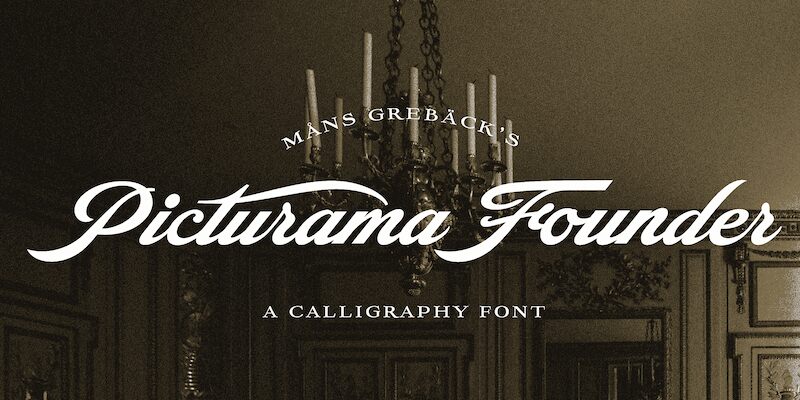
Picturama Alternate PERSONAL Regular
Picturama Alternate is a stunning addition to the Picturama Founder font family created by Mans Greback. This calligraphy style font exudes timeless elegance while embracing modern creativity.
Its graceful curves and seamless connections evoke a sense of refinement, reminiscent of vintage labels or classic vinyl covers. Picturama Alternate is perfect for projects that require a touch of sophistication and nostalgia, such as wedding invitations, luxury branding, or artistic photography portfolios.
Captivate your audience with this exquisite script font that effortlessly blends tradition with innovation.